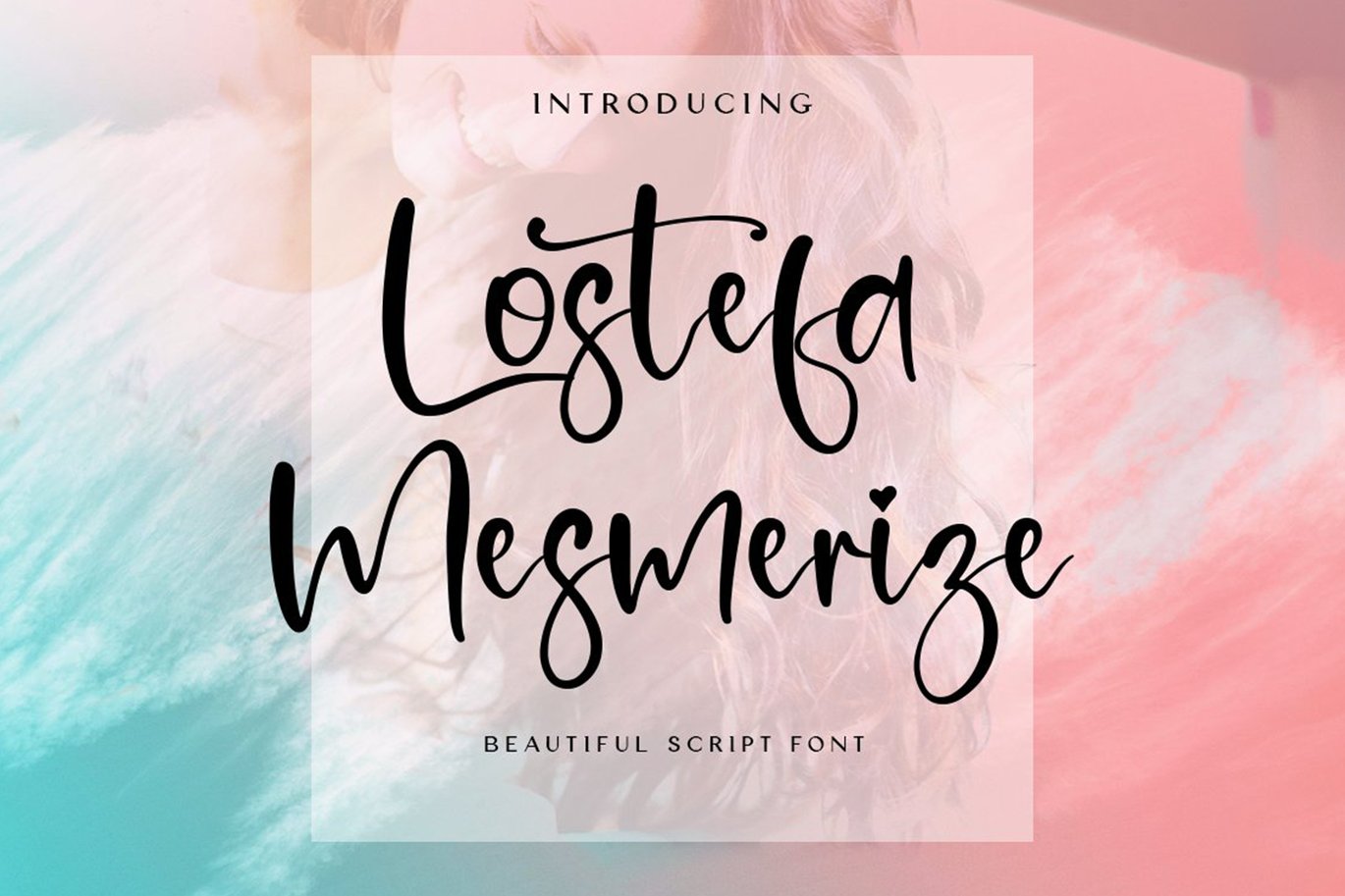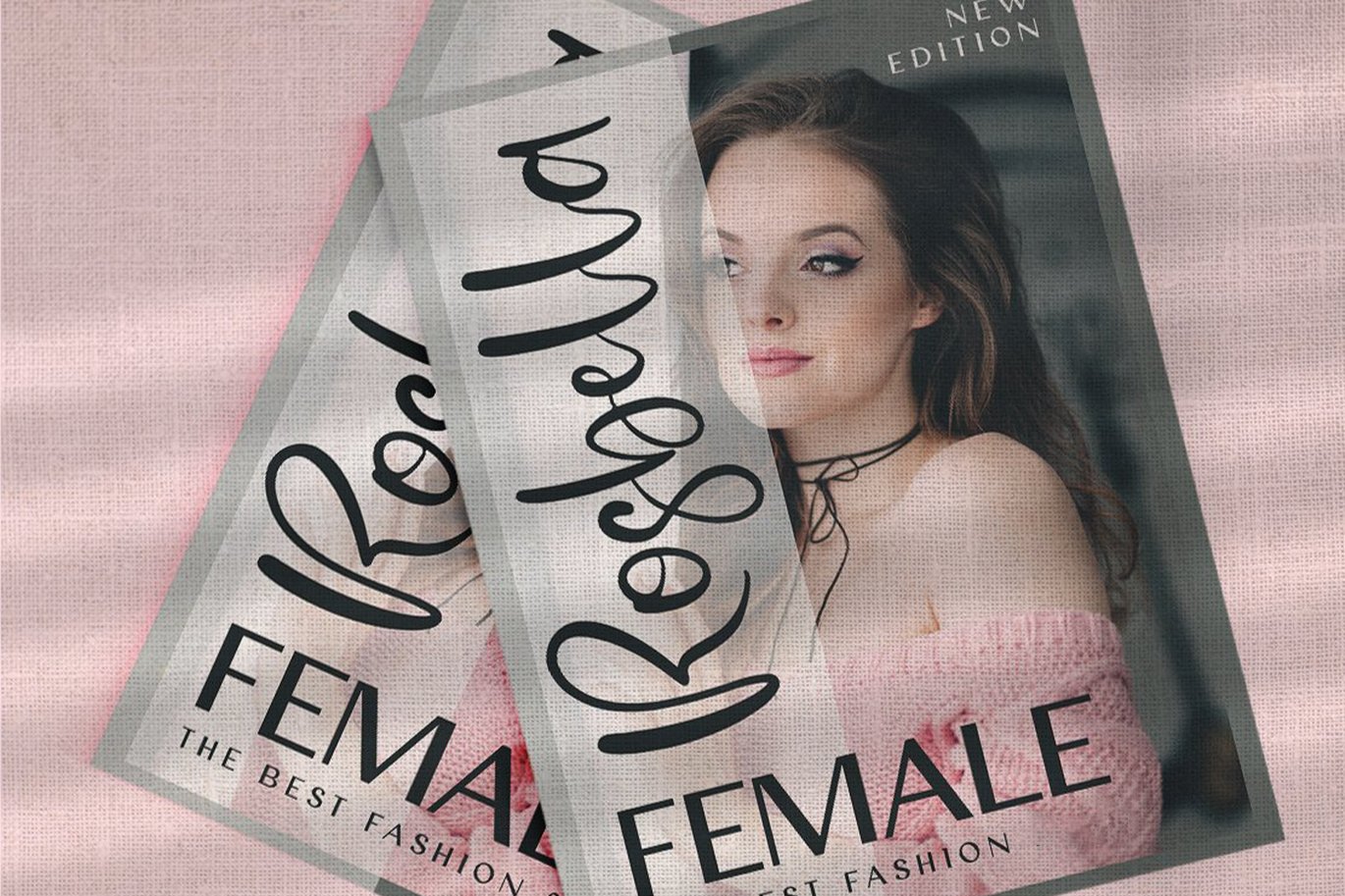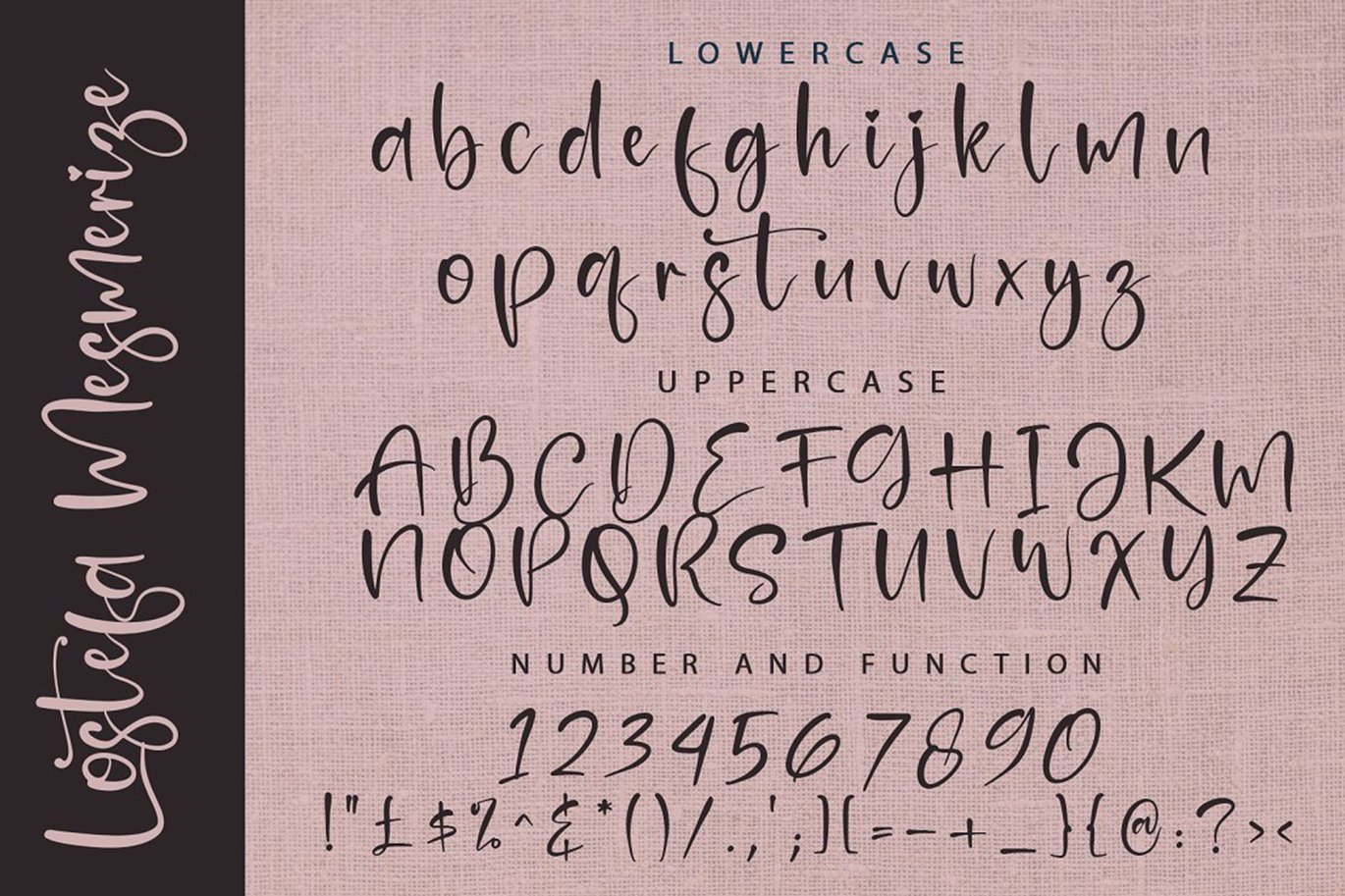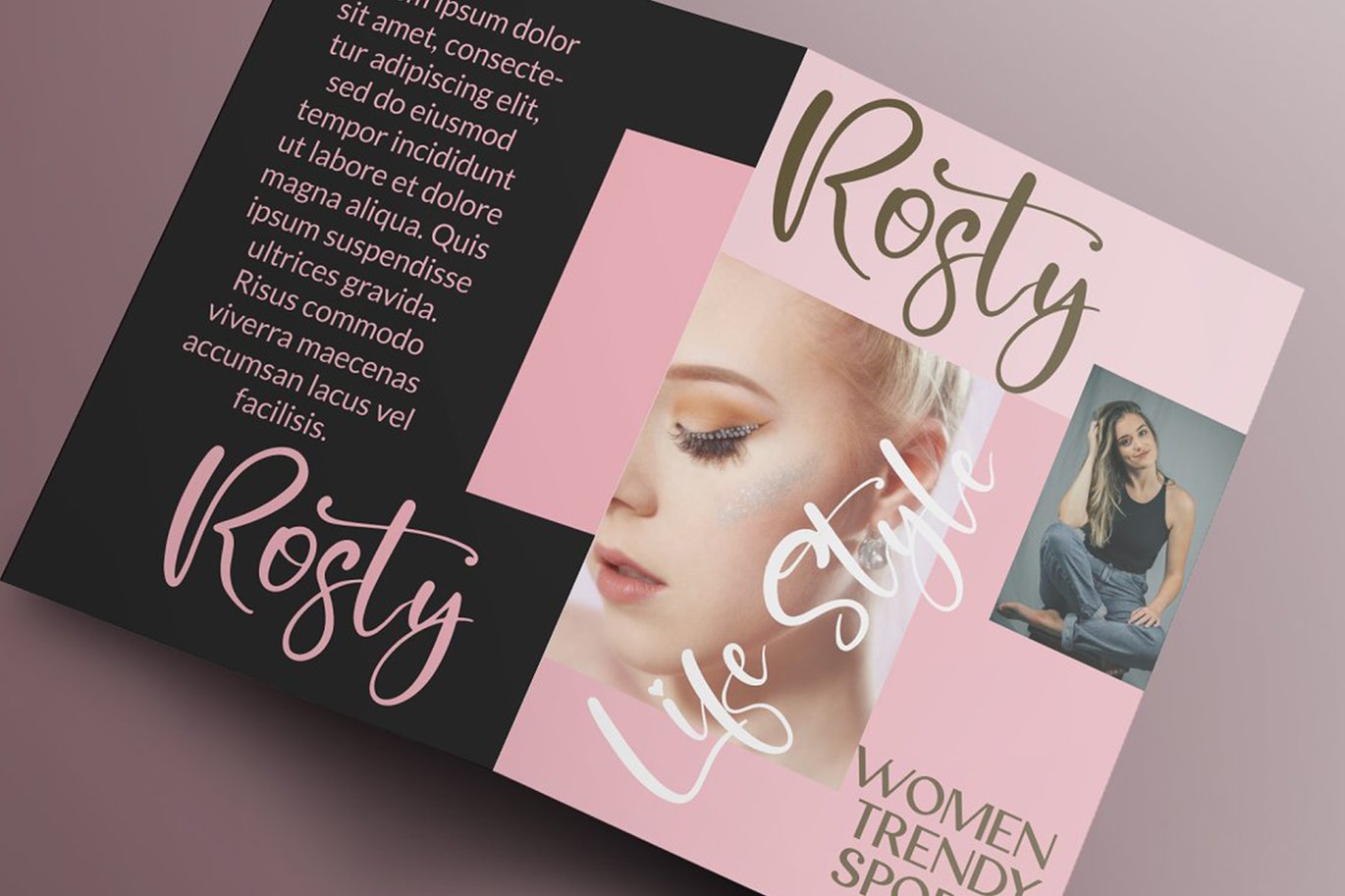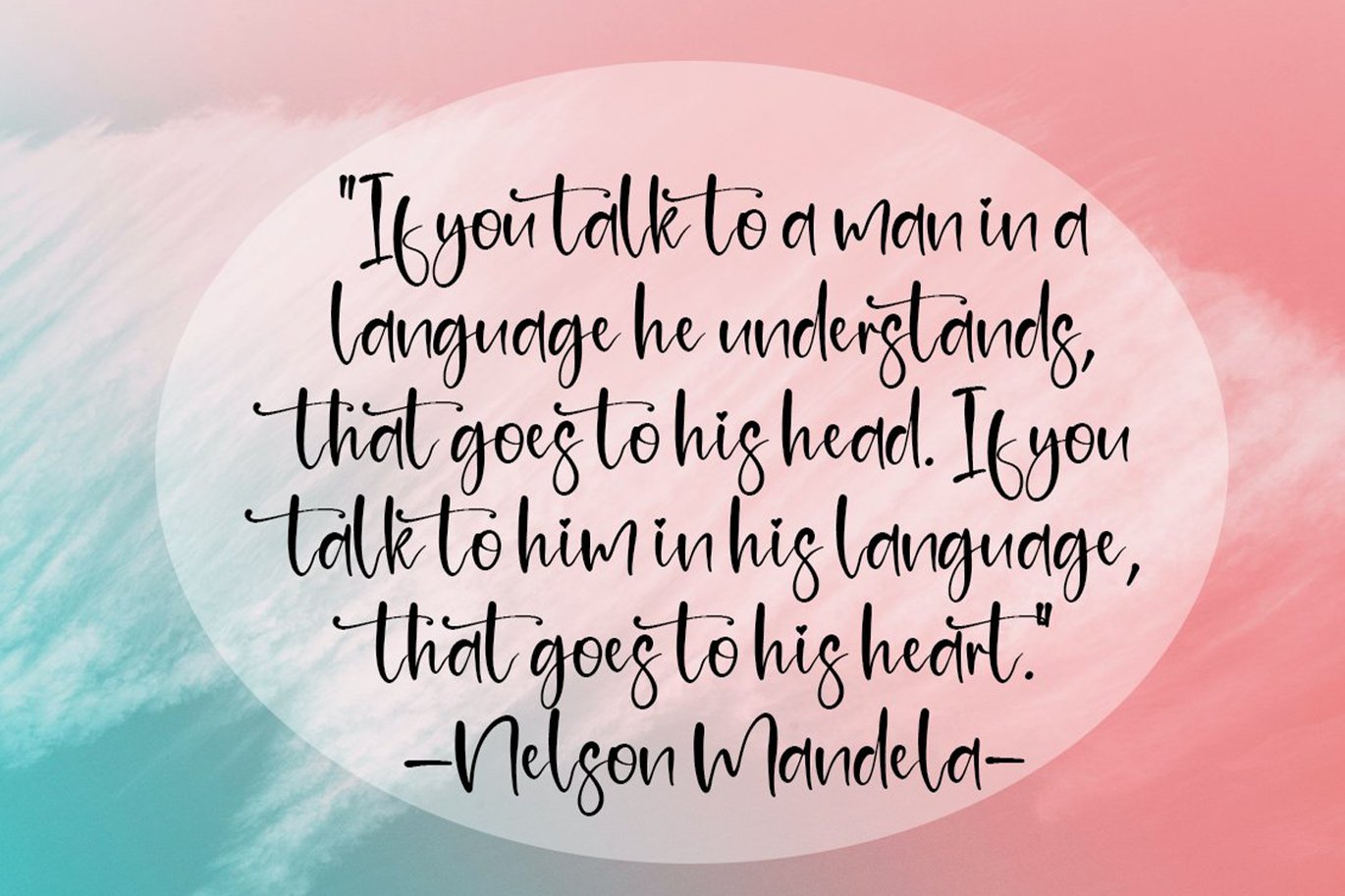
Lostefa Mesmerize – Beautiful / girly font
Lostefa Mesmerize is beautiful script font. The shape is modern, unique and the writing style is very natural. You can create many beautiful typographic designs in an instant like for wedding invitations, romantic fonts, spelling of names and others. Add to your most creative ideas and watch how they bring them to life!